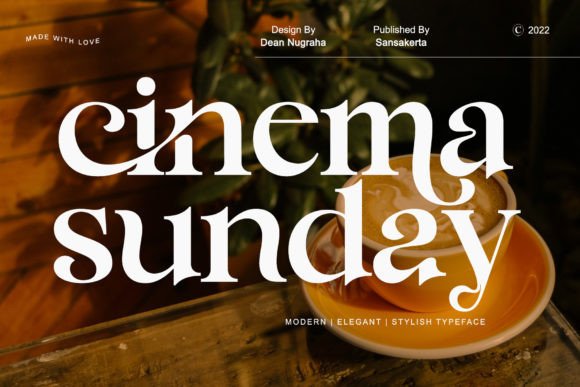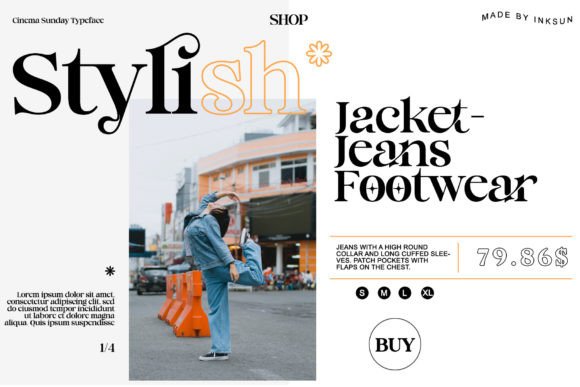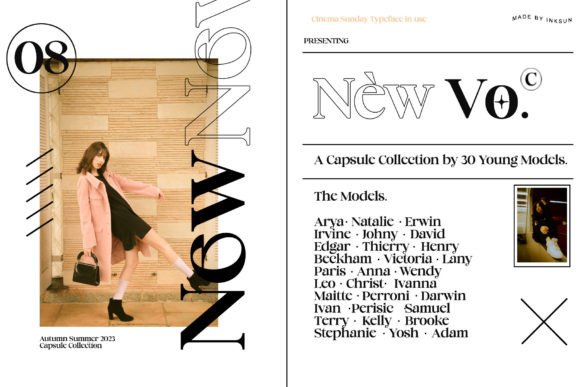
Cinema Sunday Font
About the Cinema Sunday Font
Meet Cinema Sunday Font, a stunning font that brings a touch of elegance and professionalism to any design. Cinema Sunday is a bold and elegant serif font with a chic, feminine twist. Its stylish and refined appearance makes it suitable for luxurious branding materials, fashion and cosmetics packaging, apparel, websites, social media posts, and more!
Cinema Sunday Font Usage Examples
Cinema Sunday Font Example